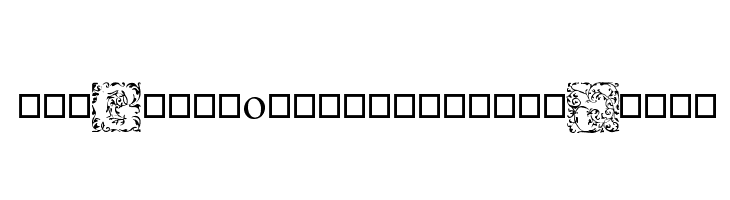
An elegant, decorative font with intricate vine-like borders around each character.
A decorative, vintage-style font with framed characters and ornate details.
An ornate, decorative font with vintage-style framed characters.
An ornate, decorative font with intricate floral embellishments.